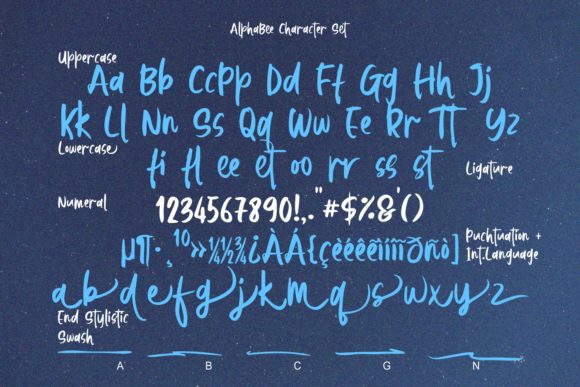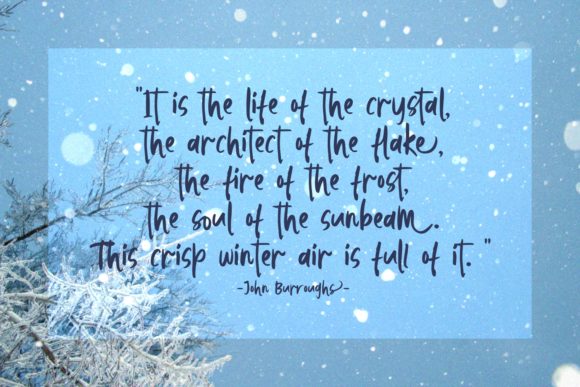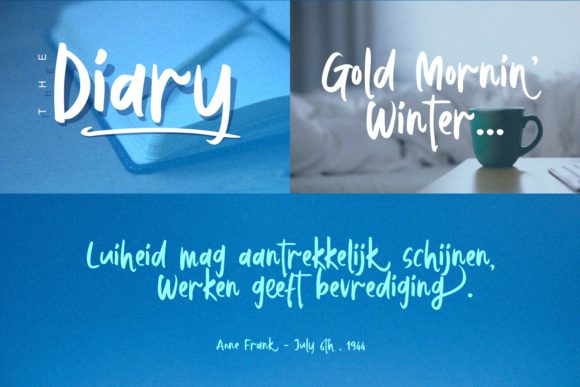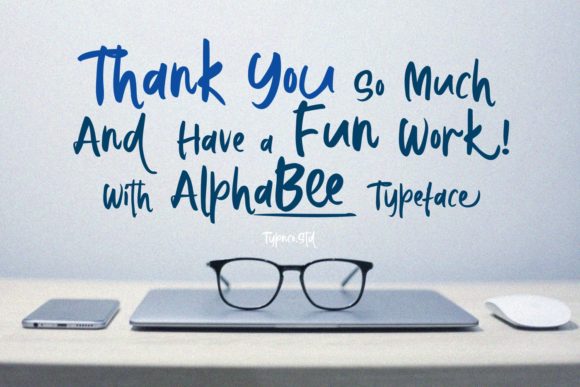
Introducing AlphaBee Font: The Sweet and Spontaneous Handwritten Font
Are you looking for a font that adds a personal touch to your designs? Look no further than AlphaBee Font, a sweet and spontaneous handwritten font that is perfect for a variety of creative projects. In this article, we’ll take a closer look at AlphaBee Font, its features, and how it can elevate your designs.
What is AlphaBee Font?
AlphaBee Font is a beautiful, handwritten font created with a stylus pen. It has a natural flow, feels fun, and informal, making it perfect for designs that require a personal touch. The font is designed to mimic the look of handwritten text, with subtle imperfections and variations that give it a unique and charming feel.
Features of AlphaBee Font
• Handwritten with a Stylus Pen: AlphaBee Font is created with a stylus pen, giving it a natural and spontaneous feel.
• Natural Flow: The font has a natural flow, making it perfect for designs that require a personal and informal touch.
• PUA Encoded: AlphaBee Font is PUA encoded, which means you can access the available glyphs and swashes with ease.
• Fun and Informal: The font feels fun and informal, making it perfect for designs that require a playful touch.
Use Cases for AlphaBee Font
AlphaBee Font is versatile and can be used for a variety of creative projects, including:
• Wedding Invitations: The font’s sweet and romantic feel makes it perfect for wedding invitations, save-the-date cards, and other wedding-related designs.
• Quotes and Titles: AlphaBee Font is ideal for creating inspirational quotes, titles, and headings that require a personal touch.
• Social Media Posts: The font’s fun and informal feel makes it perfect for social media posts, including Instagram captions, Facebook posts, and Twitter updates.
• Advertisements: AlphaBee Font can be used to create eye-catching advertisements that require a personal and creative touch.
• Crafting and DIY Projects: The font is perfect for crafters and DIY enthusiasts who want to add a personal touch to their projects, including handmade cards, gift tags, and other paper crafts.
Benefits of Using AlphaBee Font
Using AlphaBee Font can bring several benefits to your designs, including:
• Unique and Personal Touch: The font adds a unique and personal touch to your designs, making them stand out from the crowd.
• Easy to Read: AlphaBee Font is easy to read, making it perfect for designs that require a clear and concise message.
• Versatile: The font is versatile and can be used for a variety of creative projects, from wedding invitations to social media posts.
• Time-Saving: AlphaBee Font is PUA encoded, which means you can access the available glyphs and swashes with ease, saving you time and effort.
Tips for Using AlphaBee Font
Here are some tips for using AlphaBee Font effectively:
• Use it for Headings and Titles: AlphaBee Font is perfect for headings and titles, where you want to make a statement and add a personal touch.
• Mix it with Other Fonts: You can mix AlphaBee Font with other fonts to create a unique and interesting combination.
• Experiment with Colors and Textures: Don’t be afraid to experiment with different colors and textures to add depth and interest to your designs.
• Use it for Body Text: AlphaBee Font is easy to read, making it perfect for body text, especially for designs that require a personal and informal touch.
Font Name AlphaBee Font
Author Typnco
AlphaBee Font is a beautiful, handwritten font that adds a personal touch to your designs. With its natural flow, fun and informal feel, and PUA encoding, it’s perfect for a variety of creative projects, from wedding invitations to social media posts. Whether you’re a designer, crafter, or DIY enthusiast, AlphaBee Font is a great addition to your font collection.